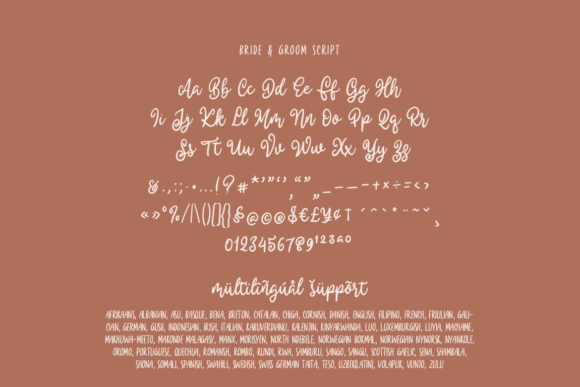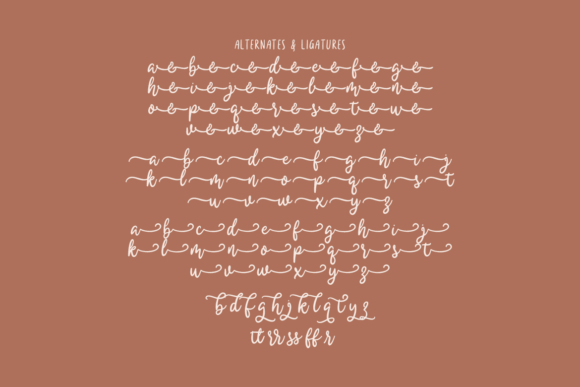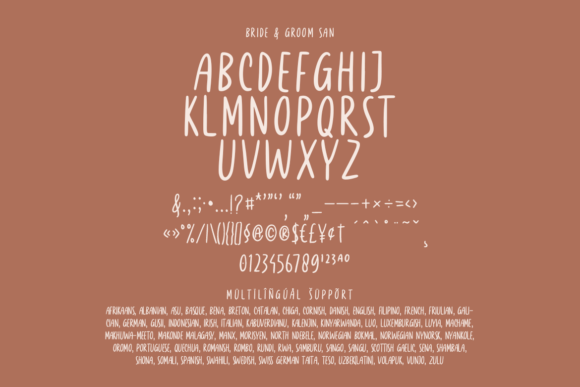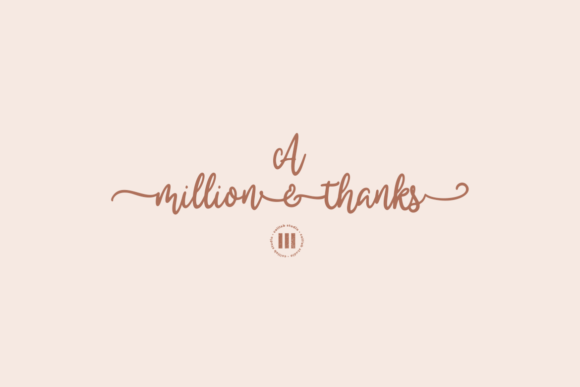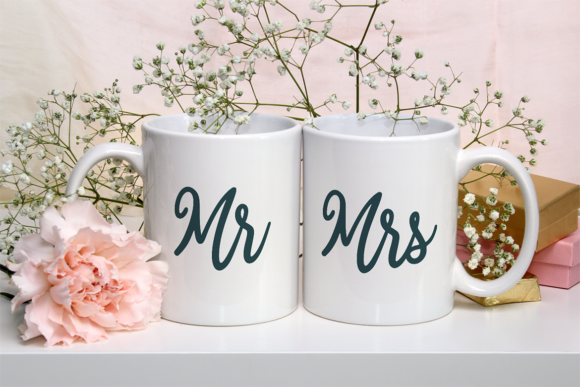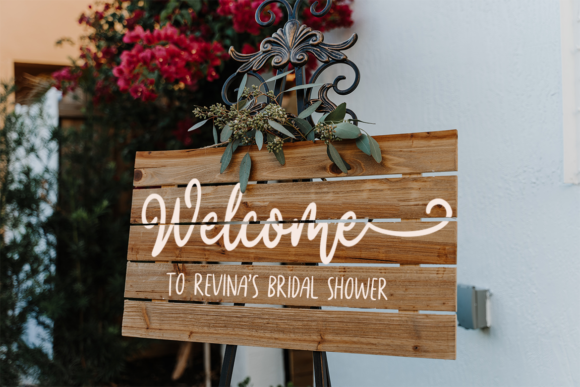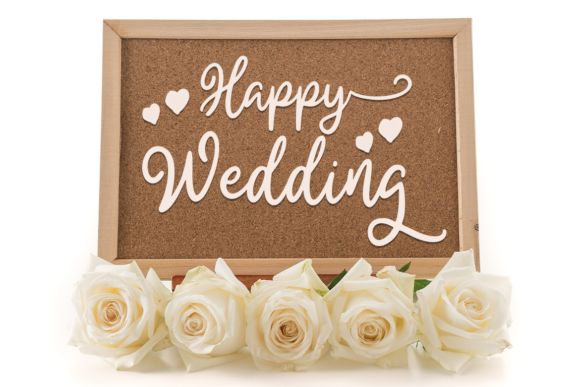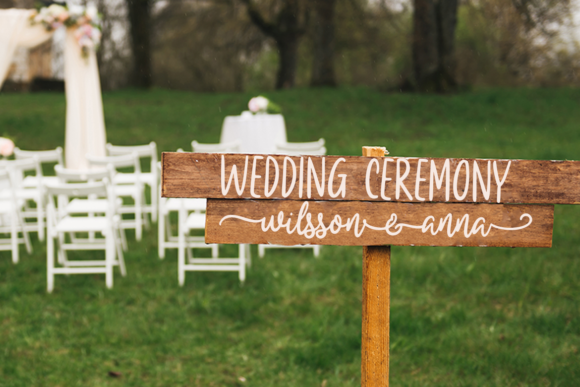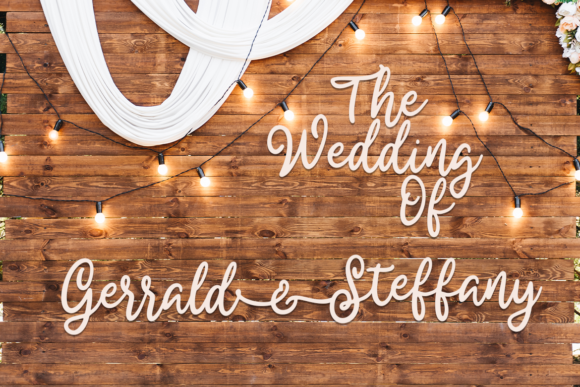
About Bride and Groom Font
Bride and Groom is a lovely duo font (sans serif and script). Incredibly versatile, this font fits a wide pool of designs, elevating them to the highest levels. It is PUA encoded which means you can access all of the glyphs and swashes with ease!